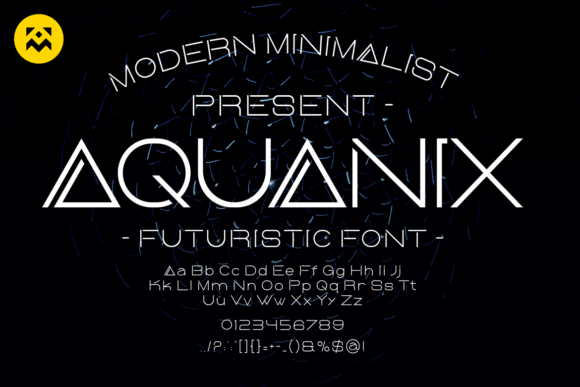
Unlock the Power of Aquanix Font: Elevate Your Brand with Bold Authenticity
Have you ever been brainstorming ideas for a new logo, only to find yourself drawn to a blank sheet of paper, waiting for inspiration to strike? That’s exactly what happened to us when we stumbled upon the Aquanix Font – a game-changing sans serif font that’s about to take your branding projects to the next level.
Aquanix Font is a versatile and authentic font that’s perfect for any branding project, from logos and t-shirt printing to product packaging and more. Its bold and striking design makes it an instant attention-grabber, ensuring your brand stands out in a crowded market. Whether you’re a seasoned designer or just starting out, Aquanix Font is a valuable addition to your toolkit, offering endless possibilities for creative expression.
Aquanix Font Key Features
- Unique Characteristics: This font features a unique blend of modern and aquatic elements, with intricate details and subtle texture, making it ideal for designs that require a touch of elegance and sophistication.
- Character Set: Aquanix Font includes a comprehensive character set, supporting a wide range of languages, including Latin, Cyrillic, and Greek alphabets.
- Font Style: Available in both regular and bold weights, Aquanix Font offers versatility and flexibility for use in various design applications.
Aquanix Font Review
Overall, I was pleasantly surprised by the Aquanix font. ✨ It has a unique, modern aesthetic that could work well in a variety of design contexts, from digital interfaces to print materials.
- ✨ Unique letterforms that evoke a sense of movement and fluidity.
- ✨ Effective use of white space to create a clean, minimalist feel.
- ✨ Suitable for both body text and headings, making it a versatile choice.
- ⚠️ Limited character set, which may not be suitable for complex or technical text.
- ⚠️ May not be as readable at smaller font sizes due to the thin strokes.
- ⚠️ Some users may find the font too avant-garde or unconventional for their taste.
In conclusion, the Aquanix font is a solid choice for designers looking for a modern, eye-catching font. While it may not be suitable for every project, it’s definitely worth considering for those who want to add a touch of uniqueness to their design. With some careful use and consideration, Aquanix can be a valuable addition to any design toolkit.
Aquanix Font Practical Application Guide
Aquanix Font is suitable for a wide range of applications, including:
- Graphic design projects
- Web design projects
- Print design projects
- Presentations and documents
It’s particularly effective for creating modern
Alternative Fonts for Aquanix Font
Pacifico is a beautiful, elegant script font that is perfect for creating a luxurious and sophisticated look. It is ideal for use in high-end branding, packaging, and advertising materials. Pacifico is more elegant and refined compared to Aquanix Font, which has a more playful and whimsical feel.
Great Vibes is a modern, handwritten font that is great for creating a fun and energetic vibe. It is perfect for use in social media graphics, posters, and other promotional materials where a playful and casual tone is desired. Great Vibes is more casual and laid-back compared to Aquanix Font, which has a more polished and refined feel.
Carolyna Pro is a modern, elegant script font that is perfect for creating a sophisticated and luxurious look. It is ideal for use in high-end branding, packaging, and advertising materials where a polished and refined tone is desired. Carolyna Pro is more elegant and refined compared to Aquanix Font, which has a more playful and whimsical feel.
A: Yes, Aquanix Font is designed to perform well in digital environments. It includes features such as hinting and kerning, which ensure that the font renders smoothly and consistently across various devices and screen resolutions.